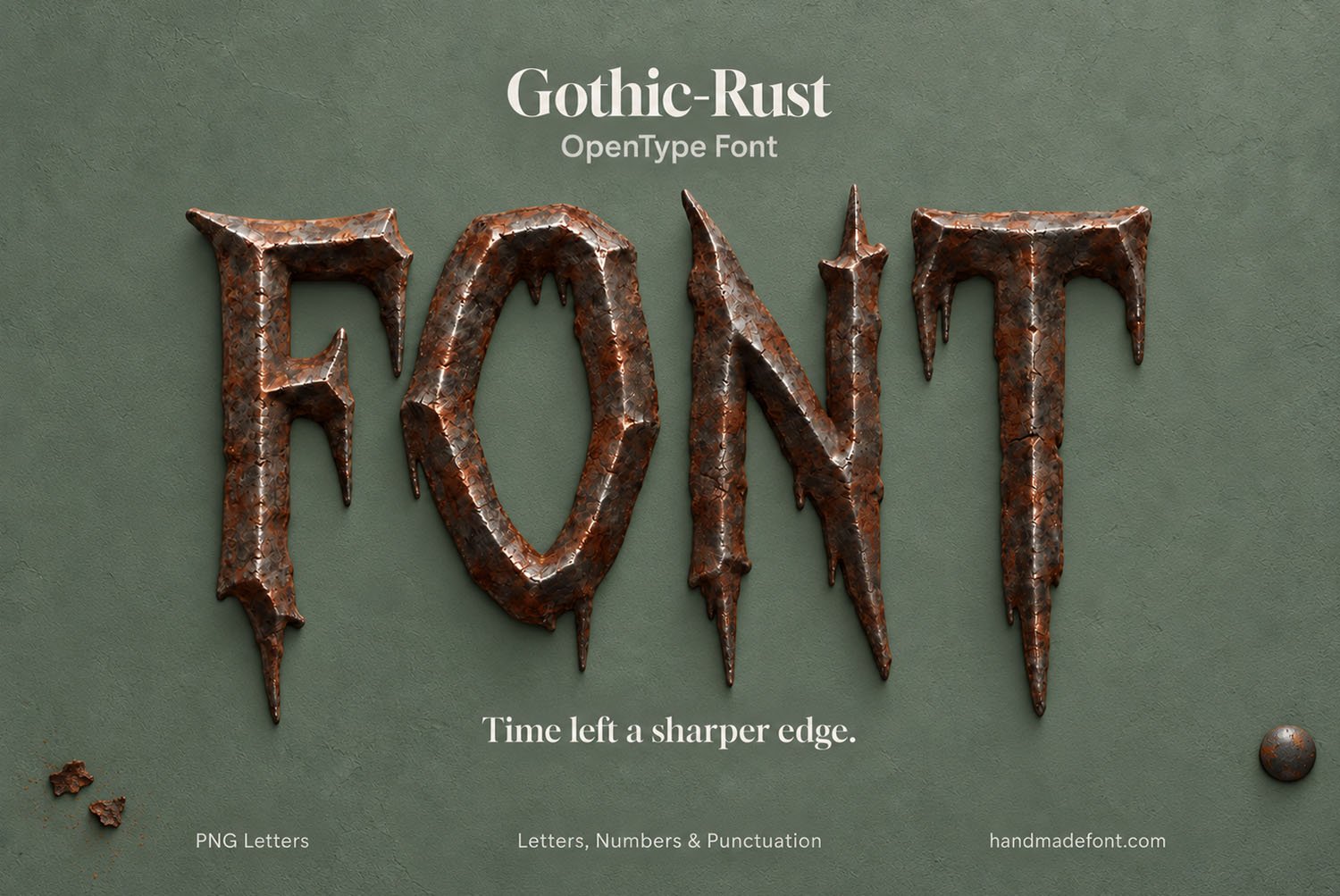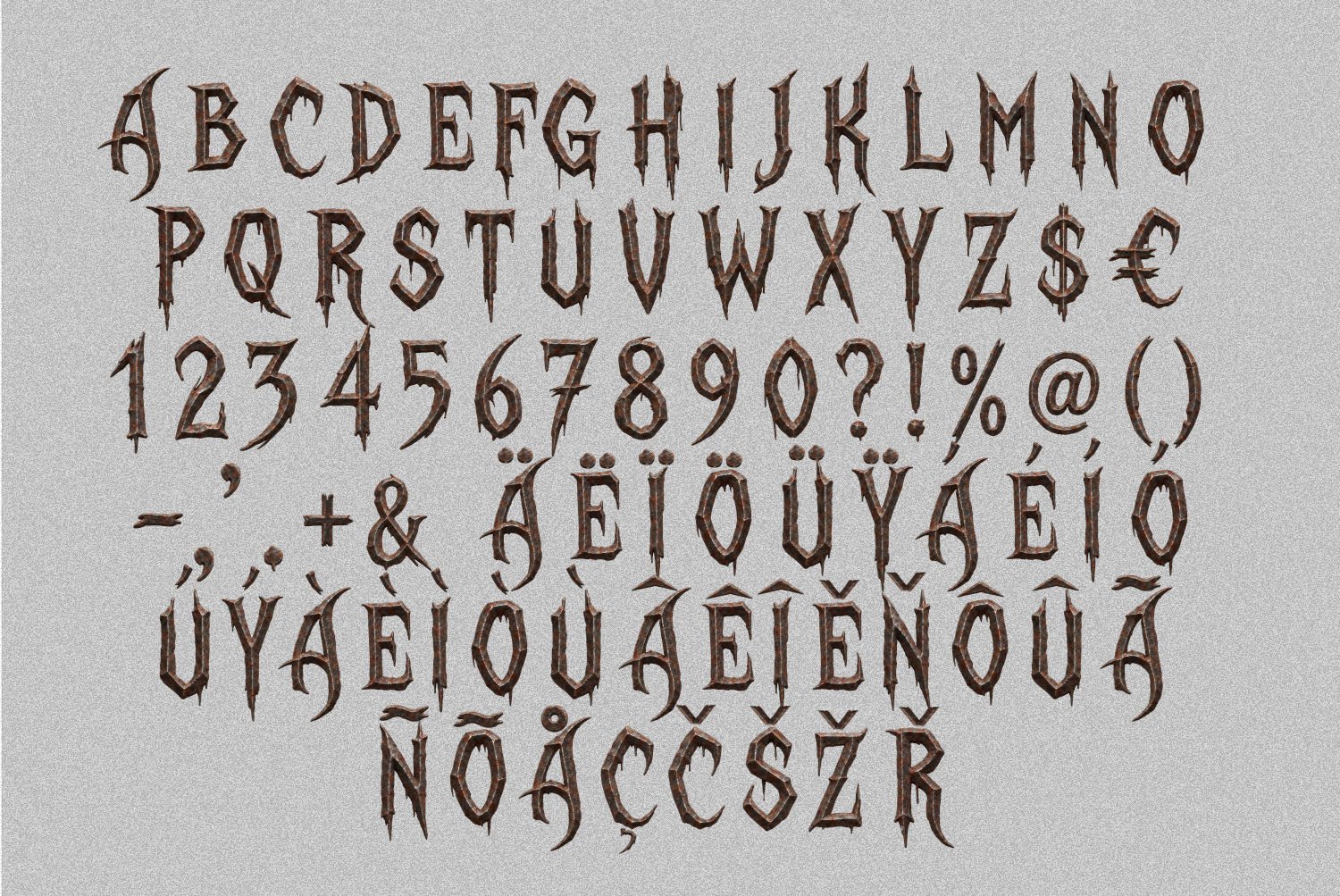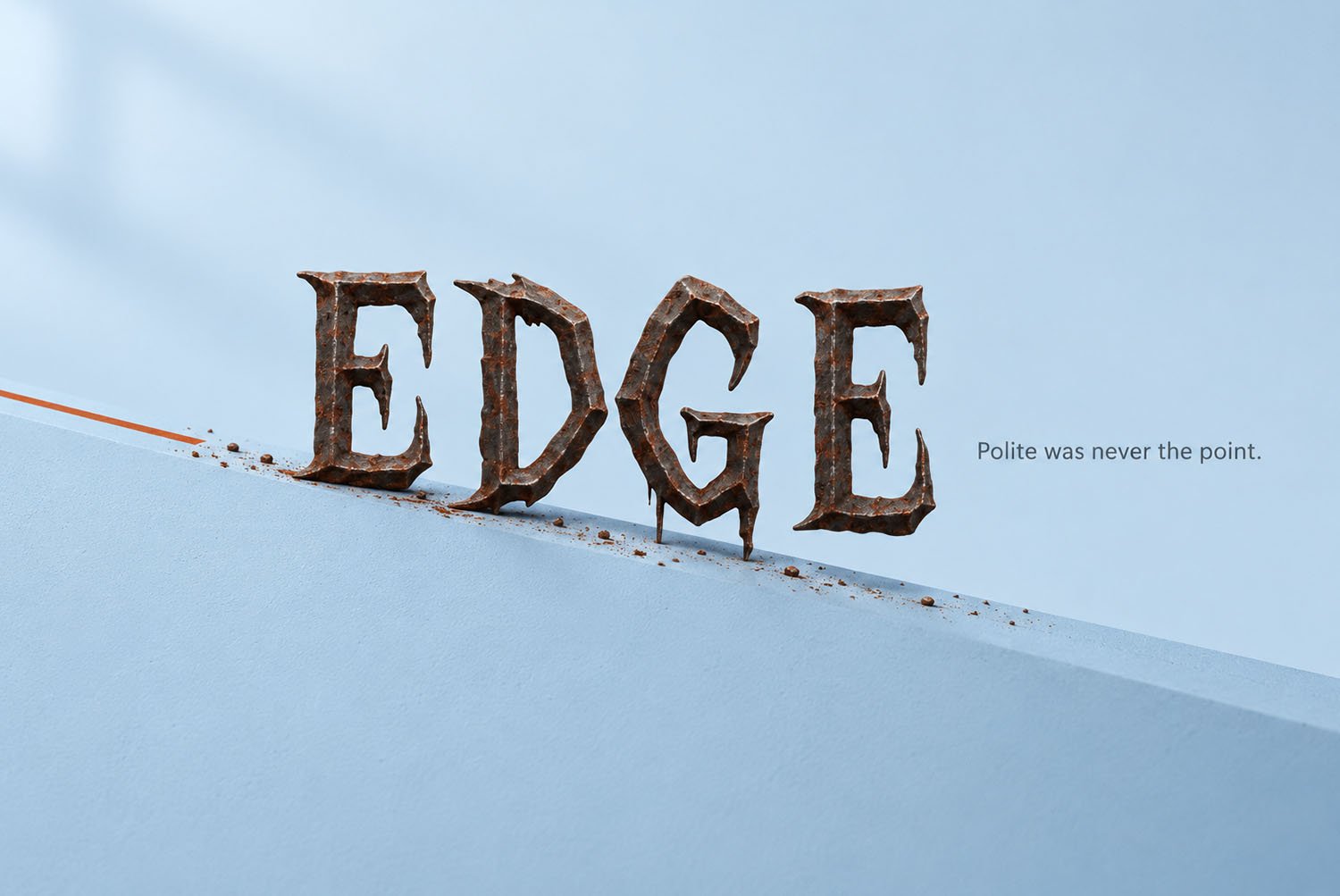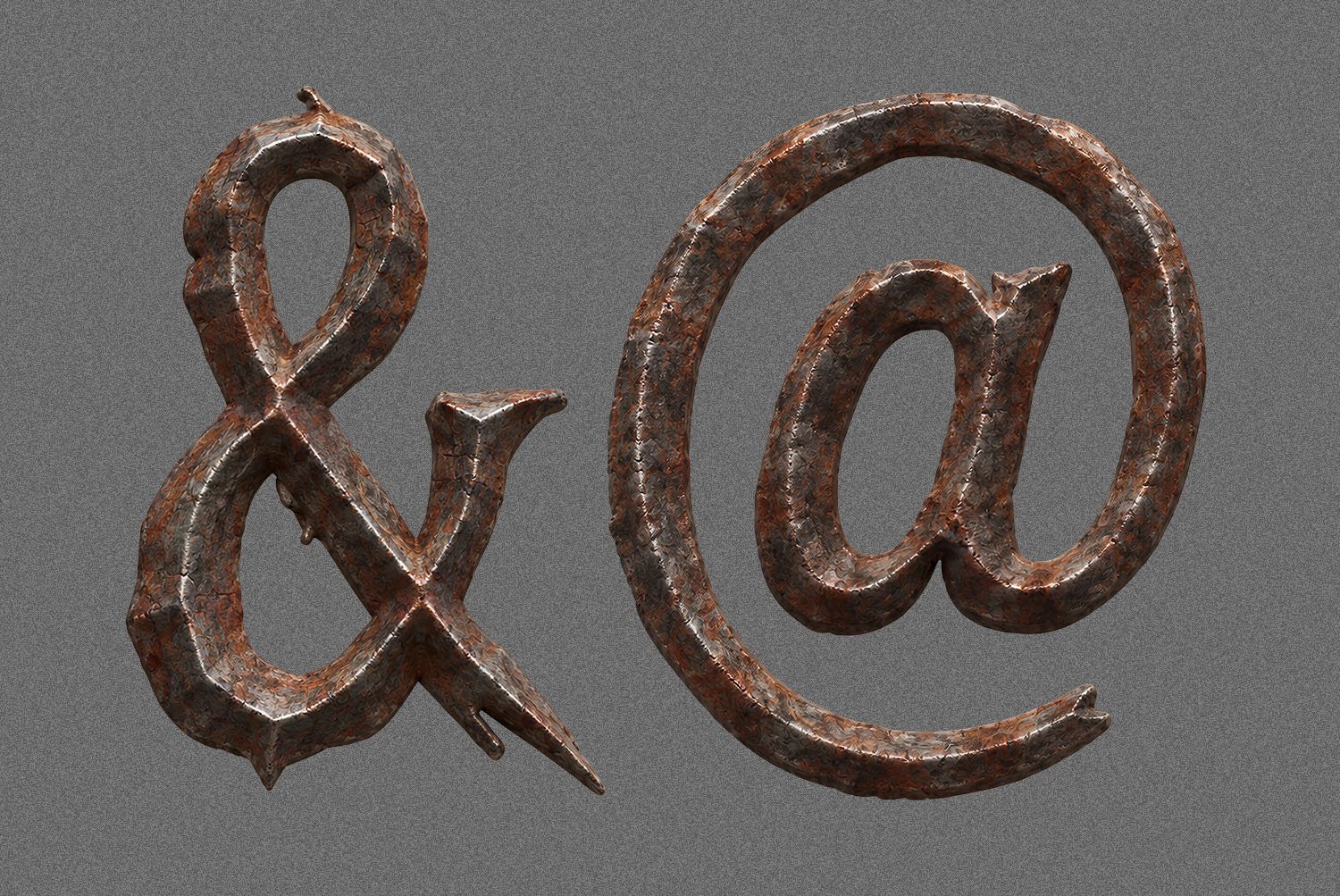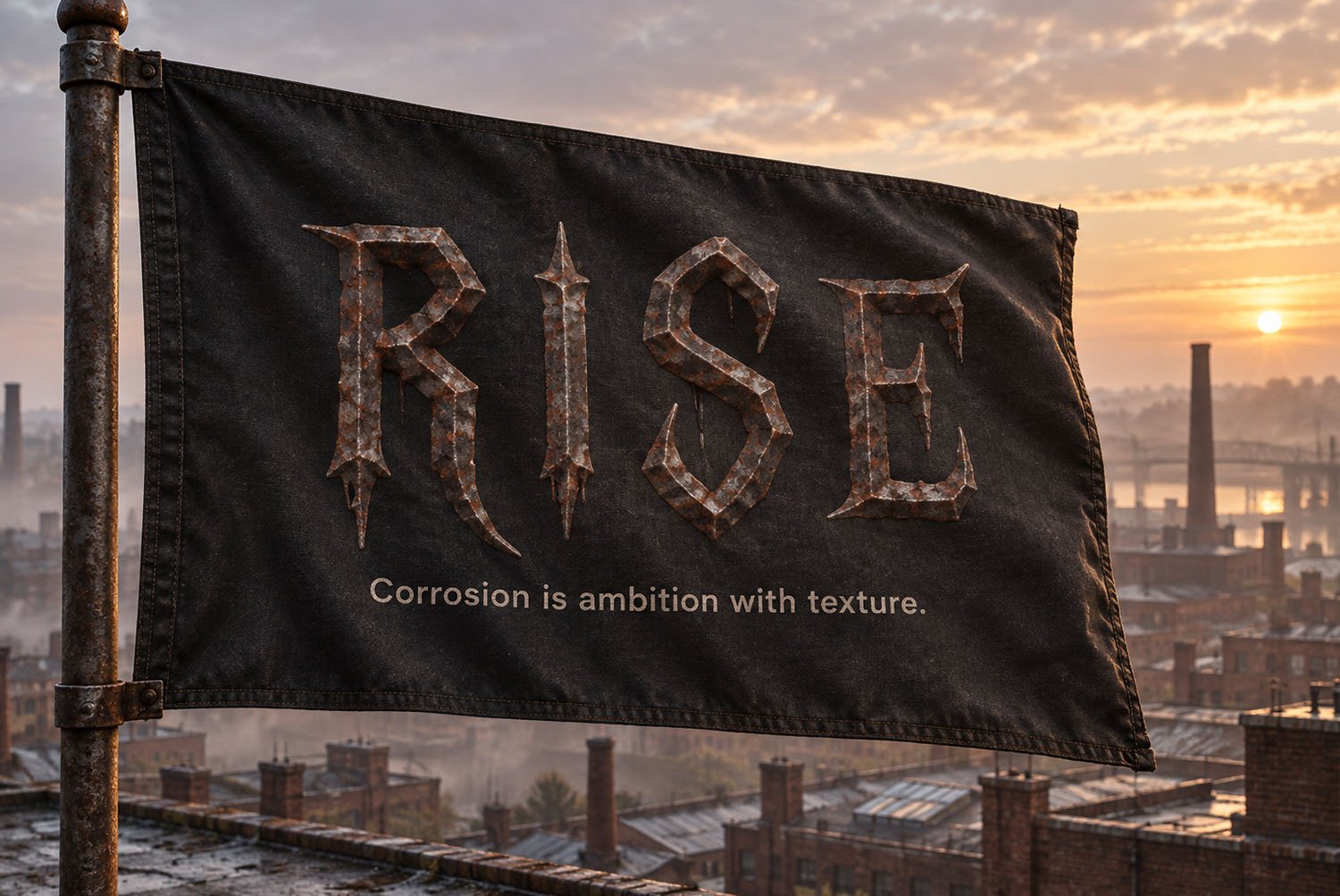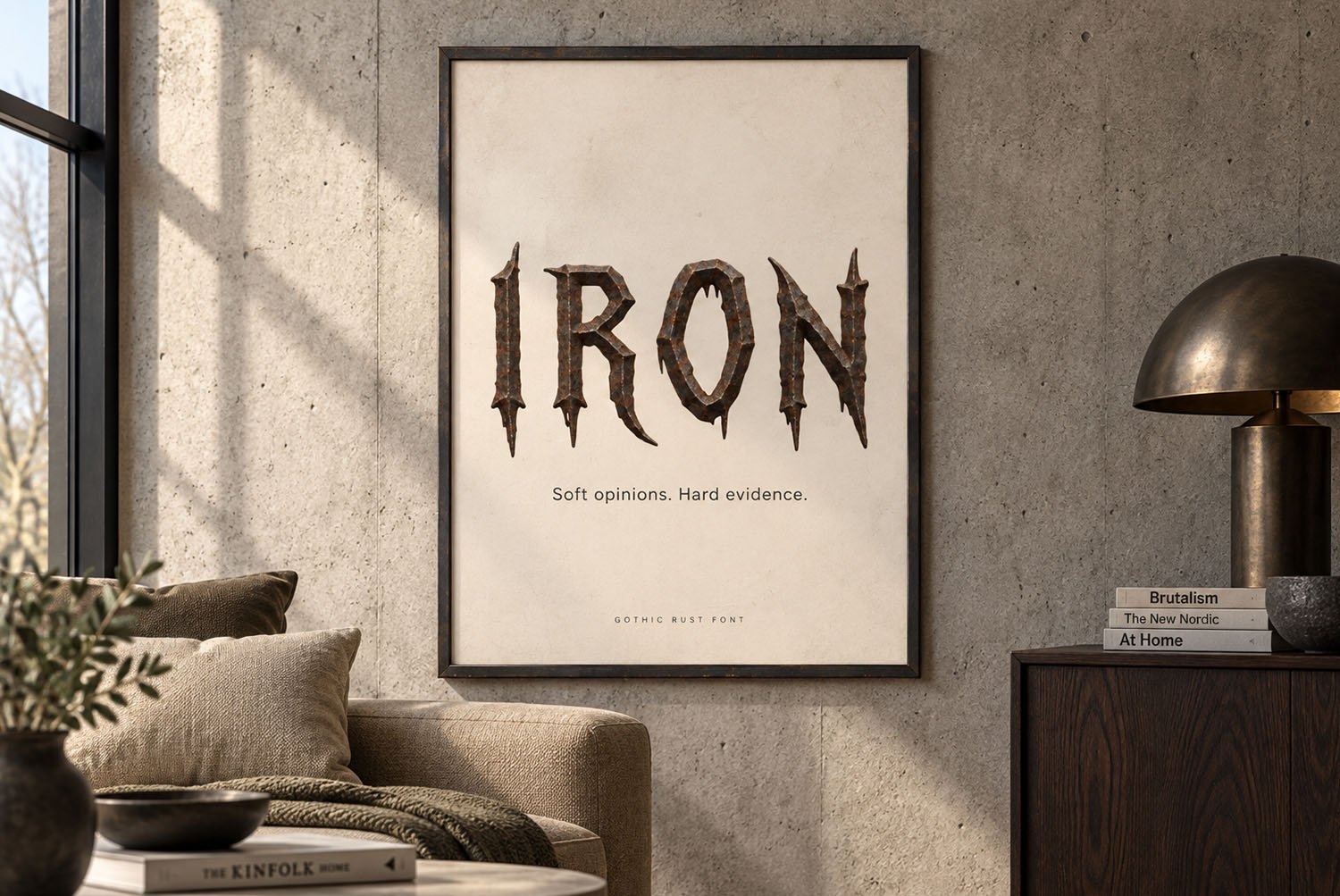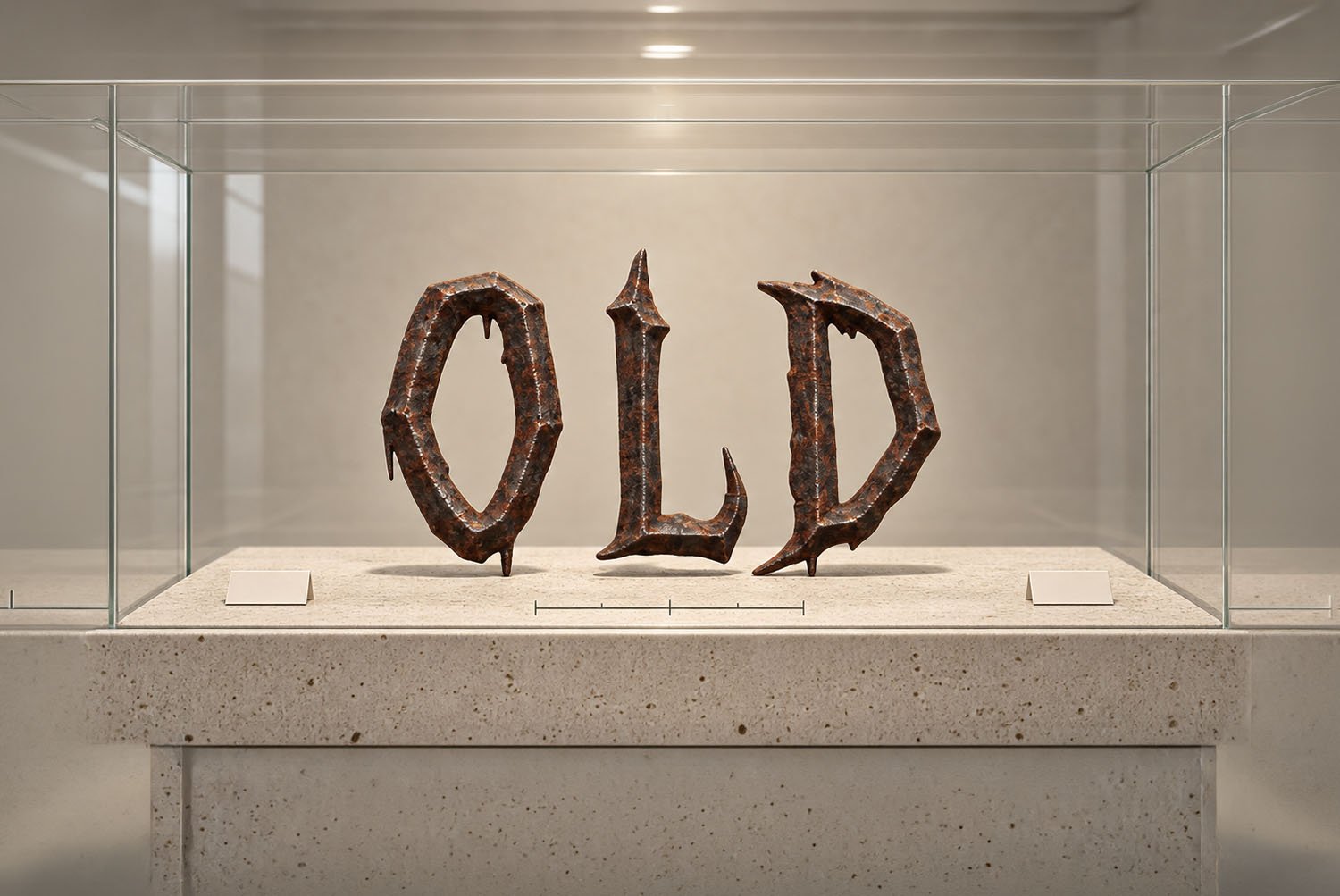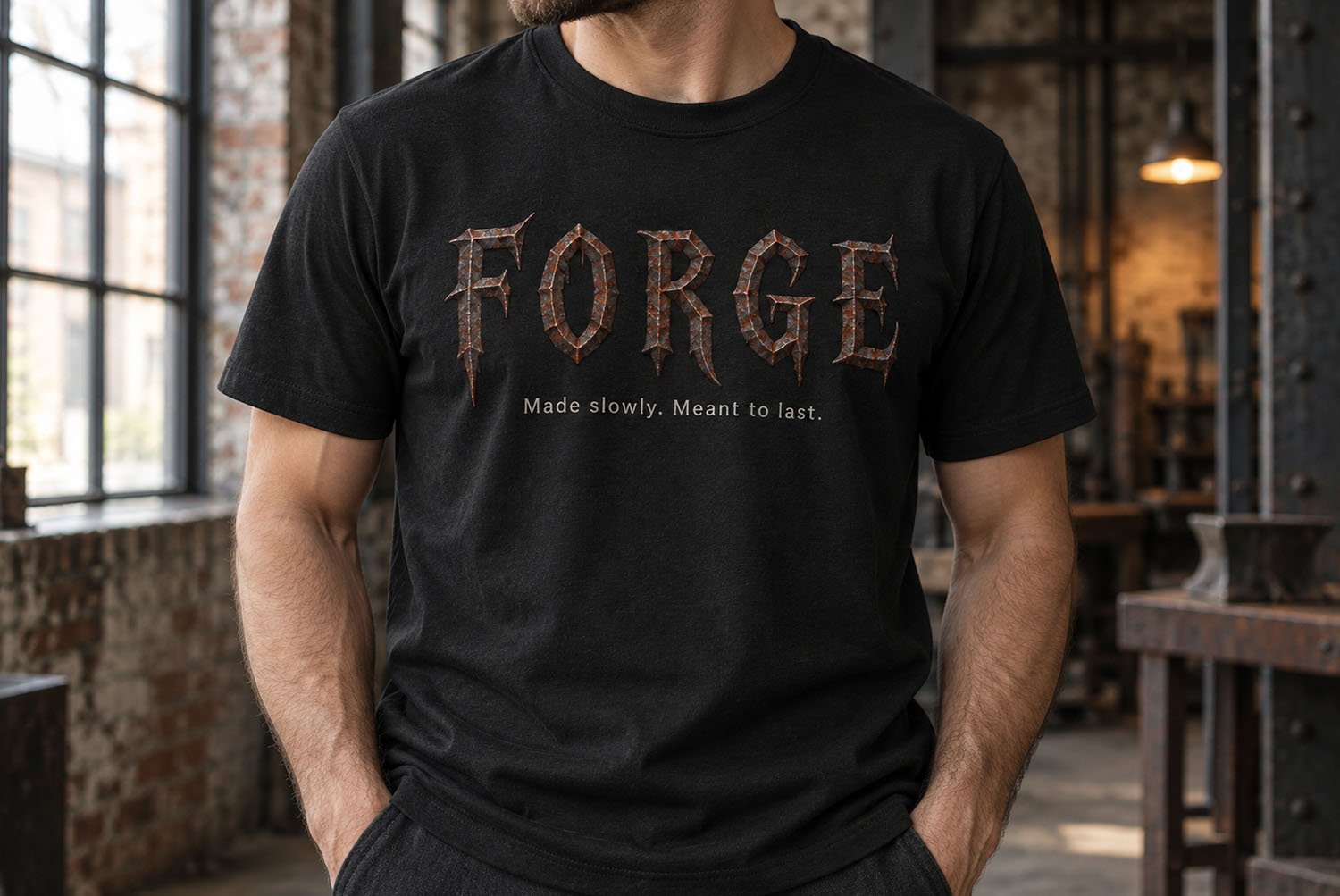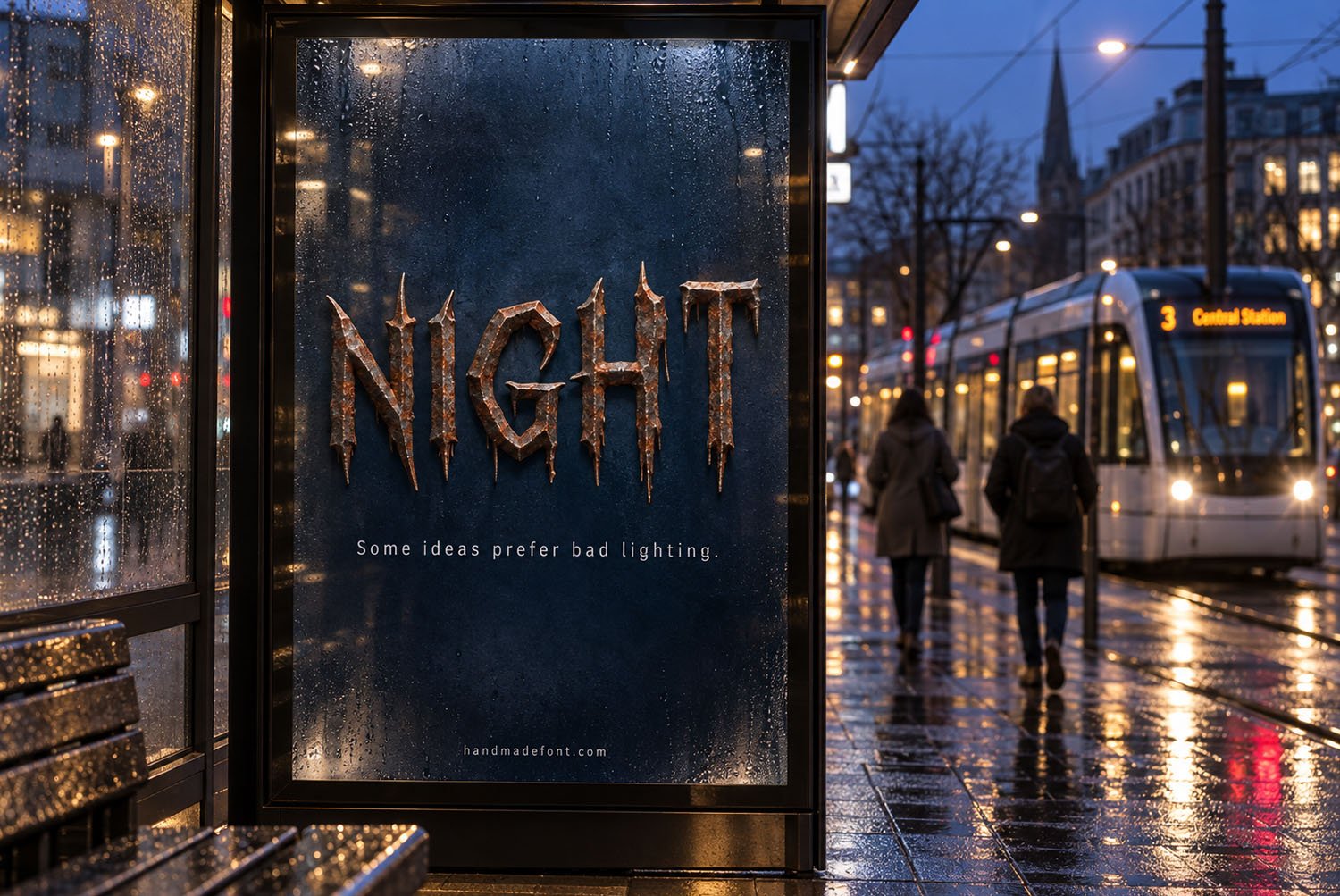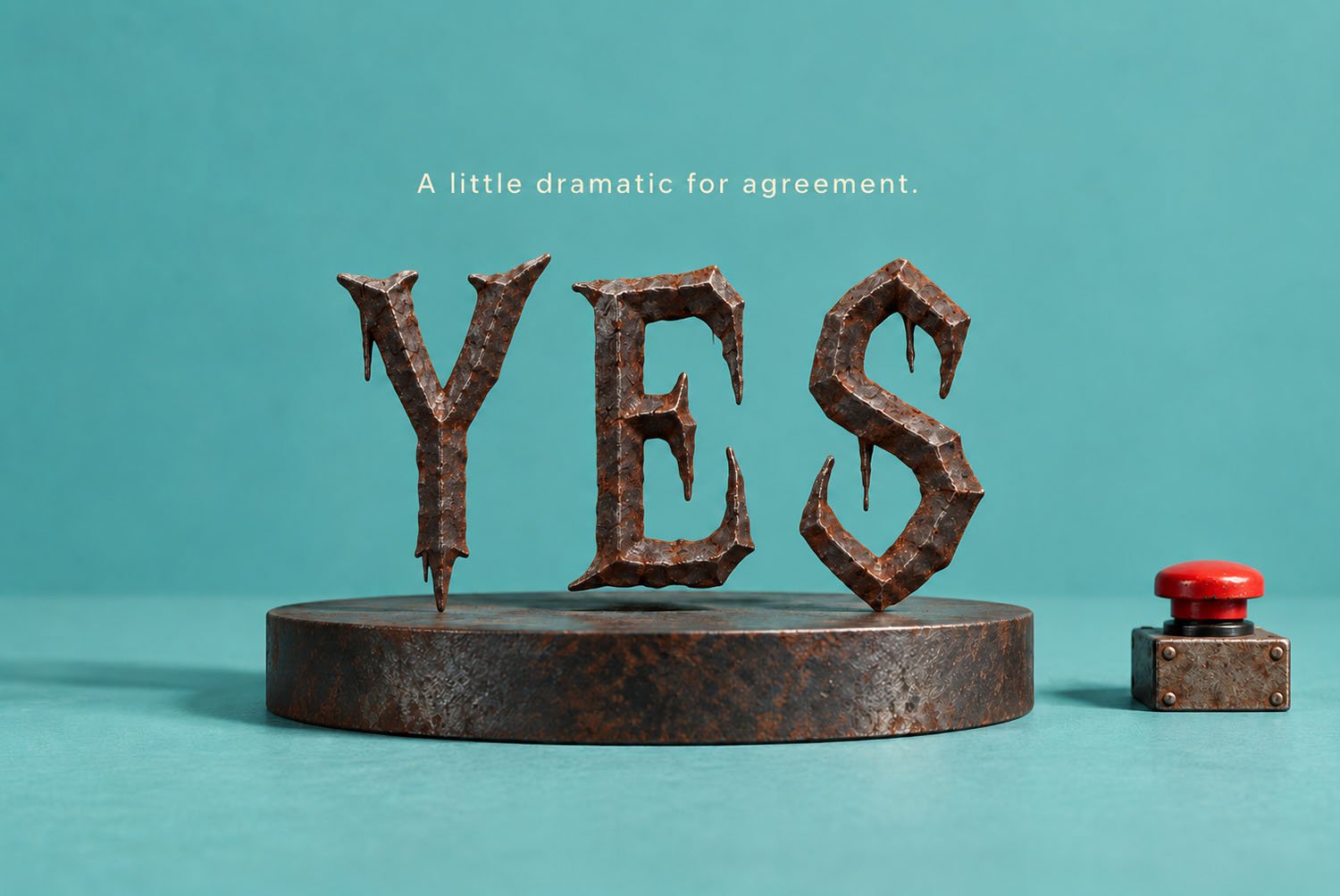
Gothic Rust Font
Gothic Rust Font is a dramatic display typeface inspired by corroded metal, medieval lettering, and dark industrial design. Its sharp serifs, jagged contours, weathered surfaces, and rusty details give every character a powerful handcrafted appearance. The package includes an easy-to-install OTF font for convenient typing, as well as every letter provided separately in high-resolution PNG format with a transparent background. Perfect for posters, album covers, games, logos, branding, horror graphics, and fantasy projects, Gothic Rust Font adds bold metallic texture and an unforgettable gothic atmosphere to creative compositions and titles.
Letters : ABCDEFGHIJKLMNOPQRSTUVWXYZ
ÄËÏÖÜŸÁÉÍÓÚÝÀÈÌÒÙÂÊÎĚŇÔÛÃÑÕÅÇČŠŽŘ
Others : ! ? - . ' $ € % & # @